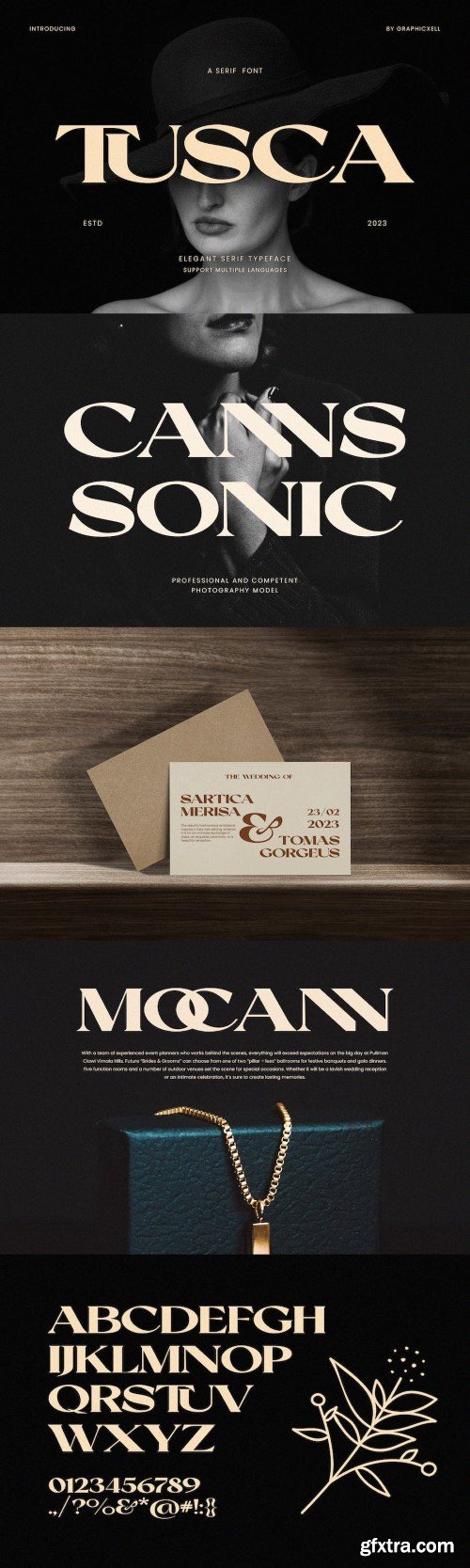
图萨优雅 serif 字型类别
inspired by the famous minimalist logo perfect for the purposes of designing templates, brochures, videos, advertising branding, logos, invitation, layout design, elegant crafting, beauty design and more.